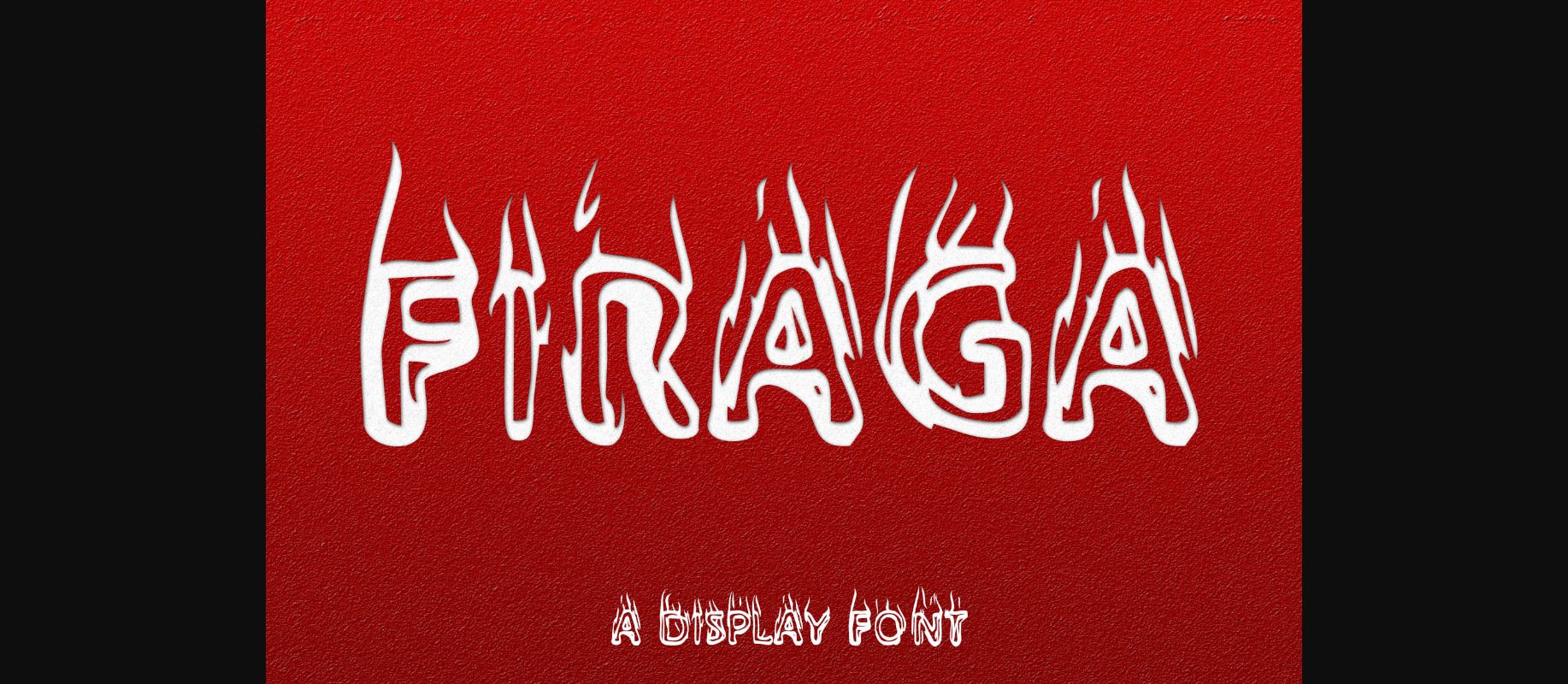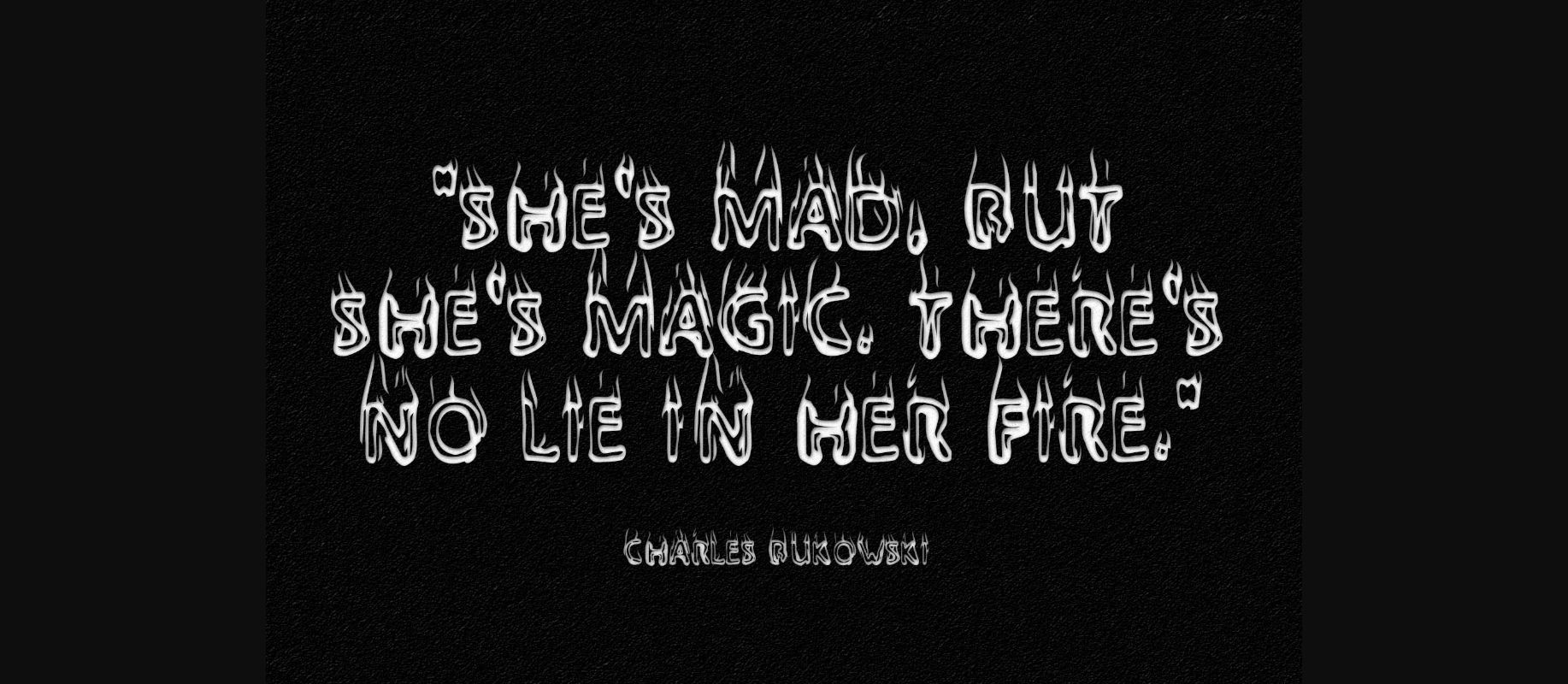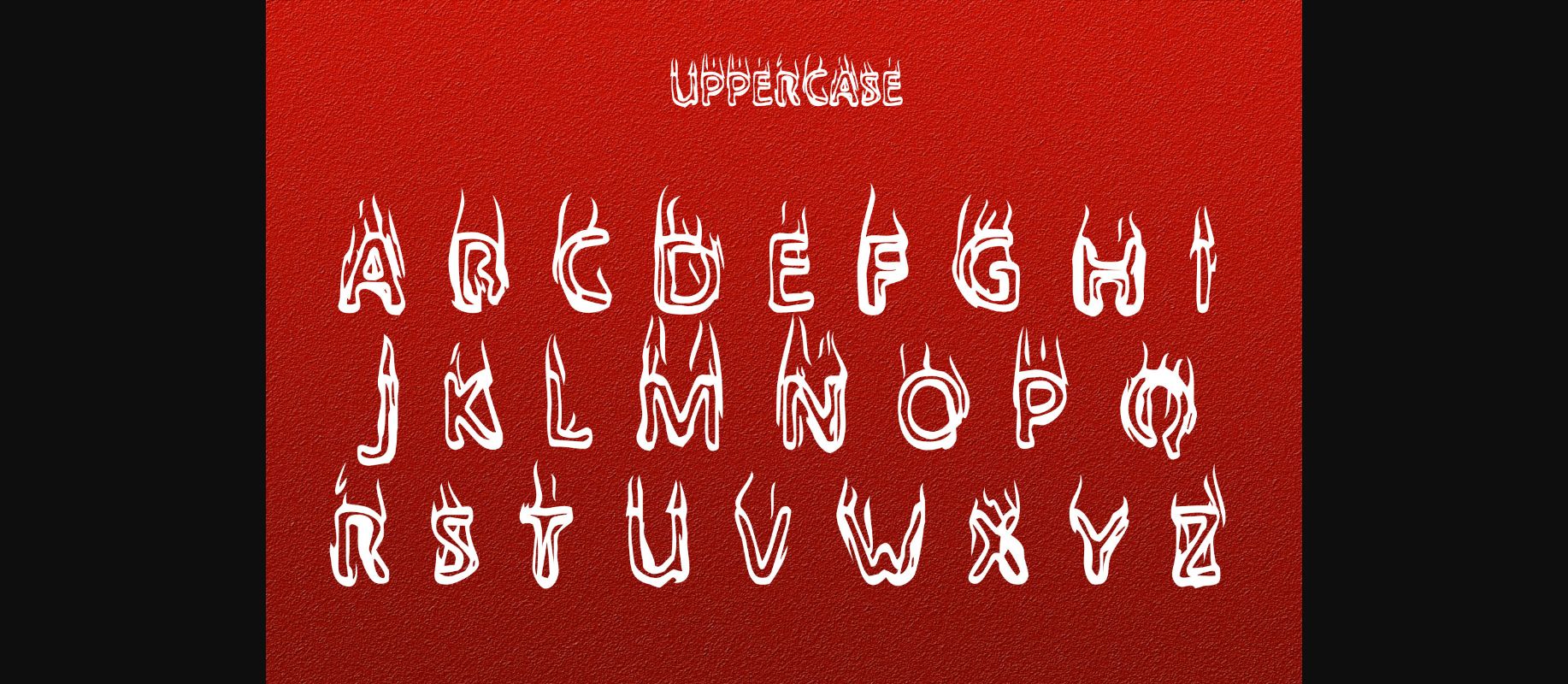
Firaga Font
About Firaga Font
Firaga is a stunning decorative font drawn as if on fire. Add this bold typeface to your most creative projects, and watch how it makes them come alive!